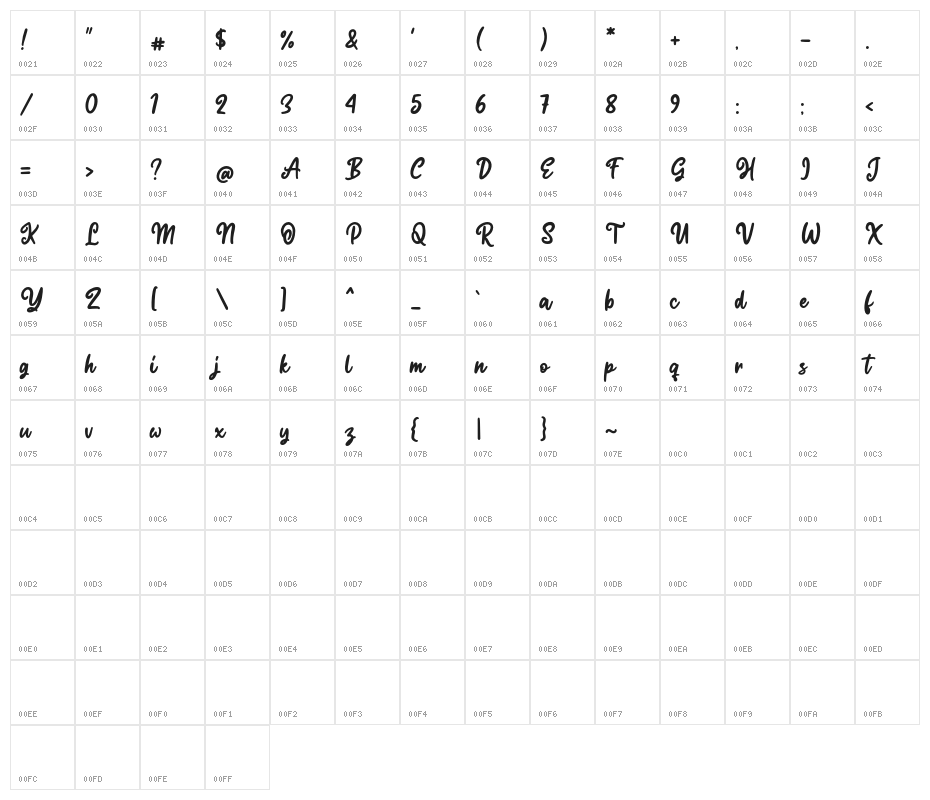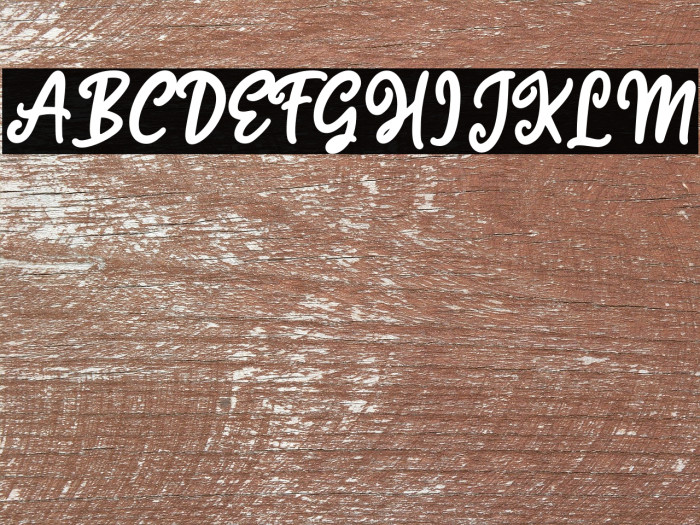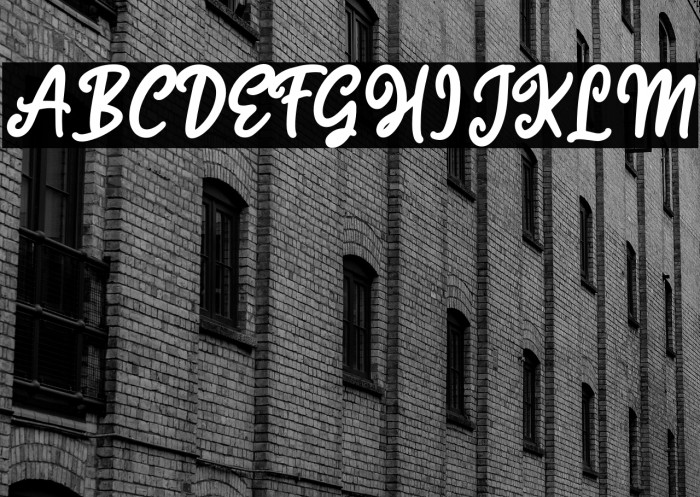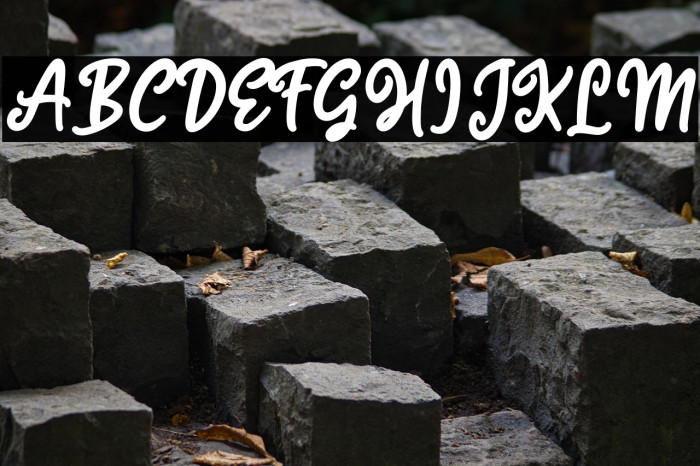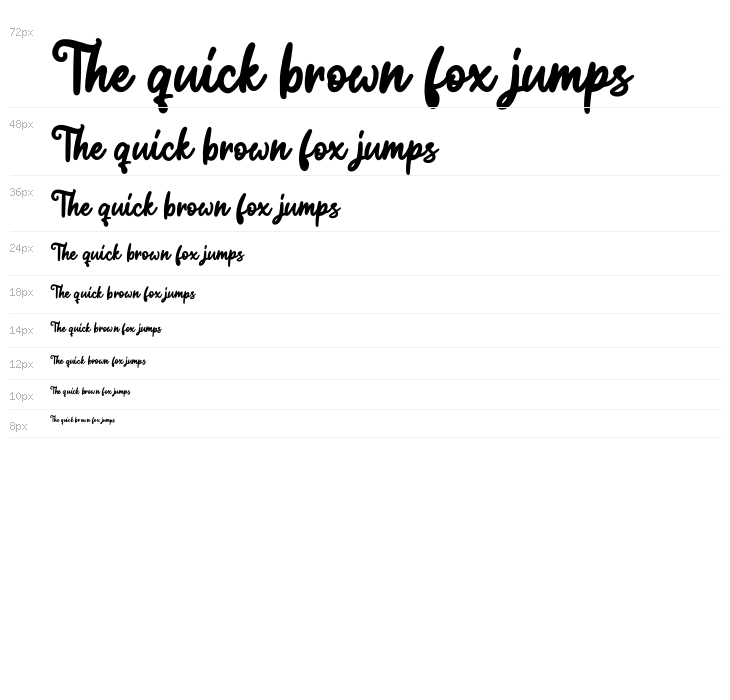
Regitta Font
Regitta Description
This font features a playful and flowing script style with a handwritten appearance. The characters are bold and rounded, giving a sense of warmth and friendliness. The uppercase letters are slightly larger and more decorative, while the lowercase letters maintain a consistent flow, enhancing readability. The numerals are clear and distinct, matching the overall style of the letters. Special characters are well-integrated, maintaining the font's cohesive look. This font is ideal for projects that require a personal touch, such as invitations, greeting cards, and branding materials.
| Proposed Projects | Ideal for invitations, greeting cards, branding, and personal projects. |